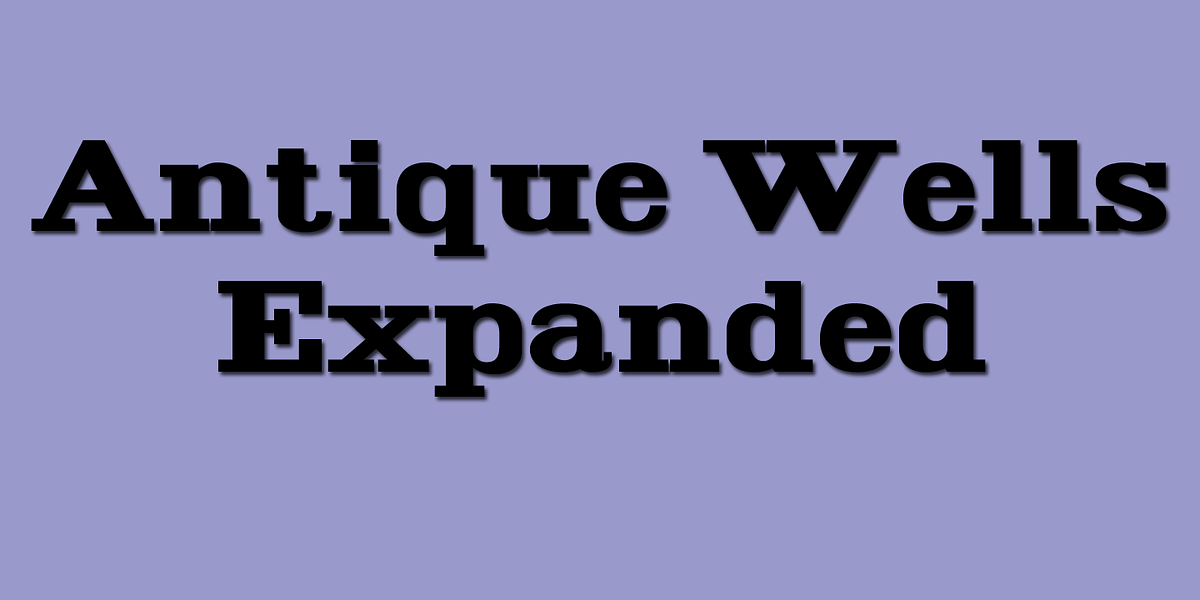
Antique Wells Expanded
Antique Wells Expanded is a revival of a popular 19th-century wood type font. It's characterized by its square slab serif design and expanded letterforms. The font features unique lowercase characters for 'g', 'k', 'y', and 'a'. It is suitable for both text and display applications.